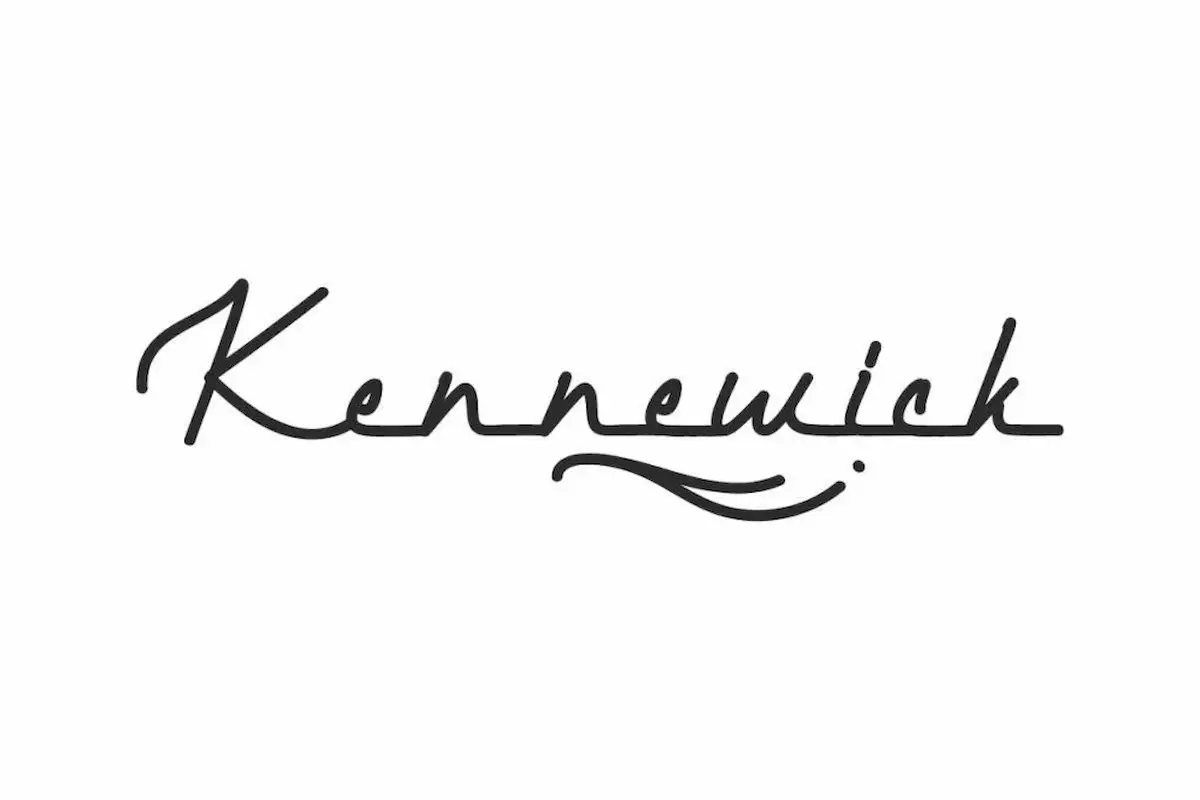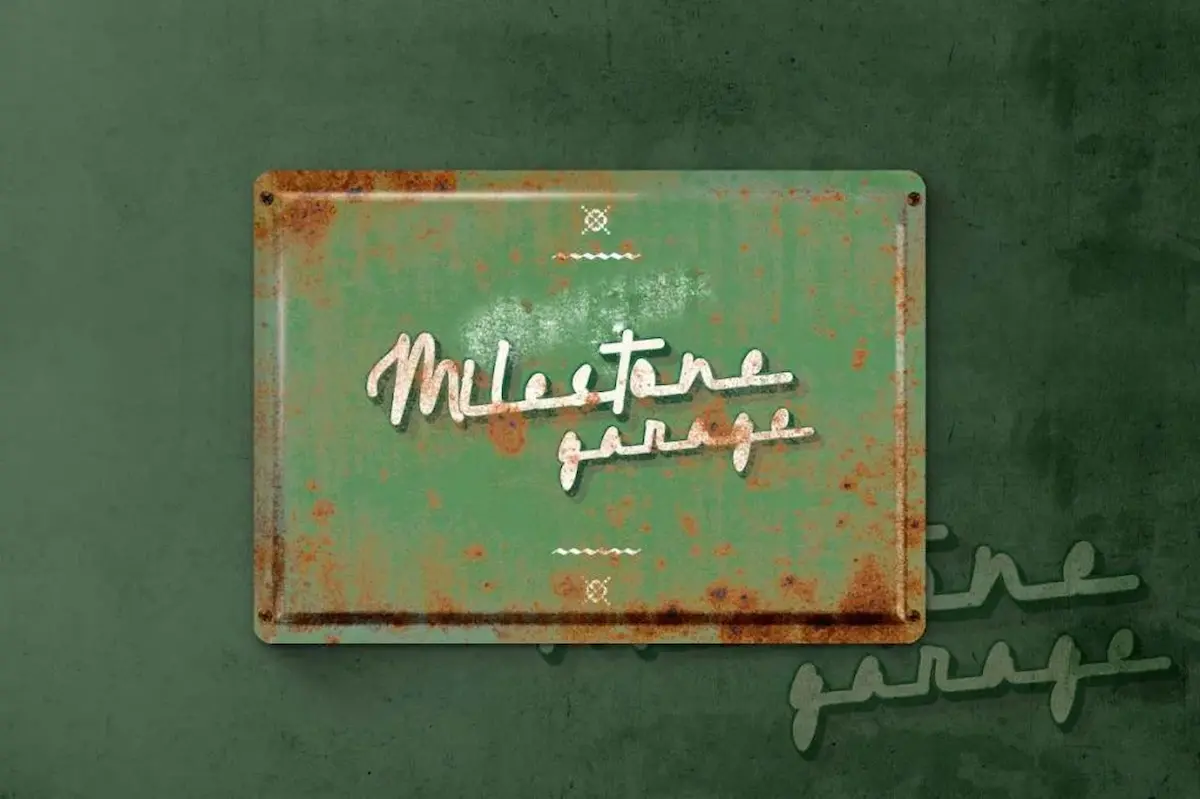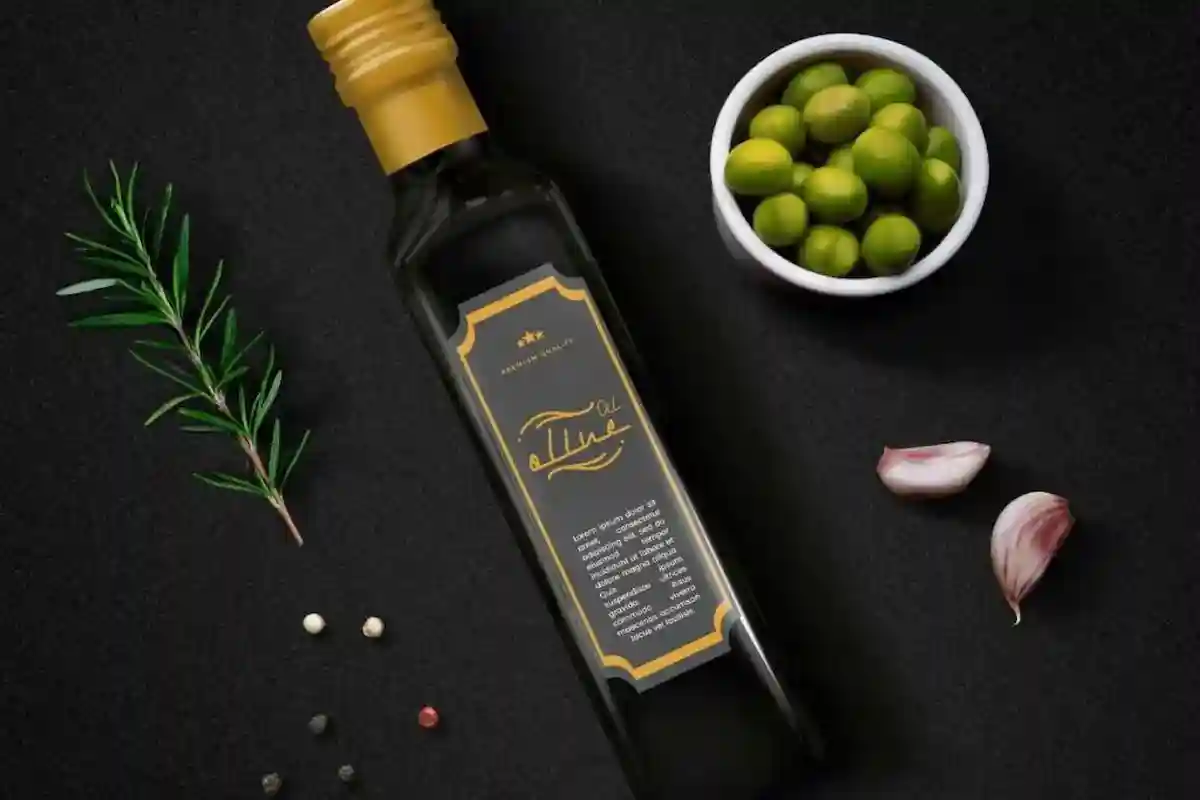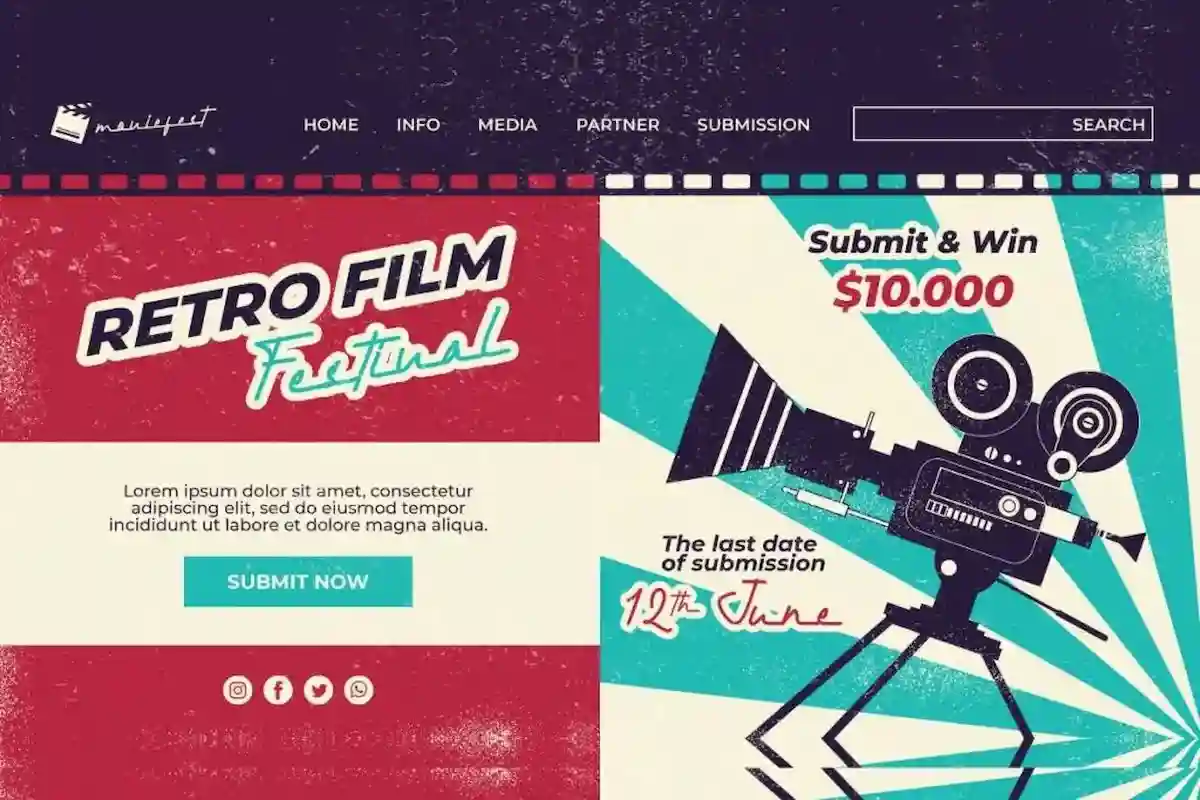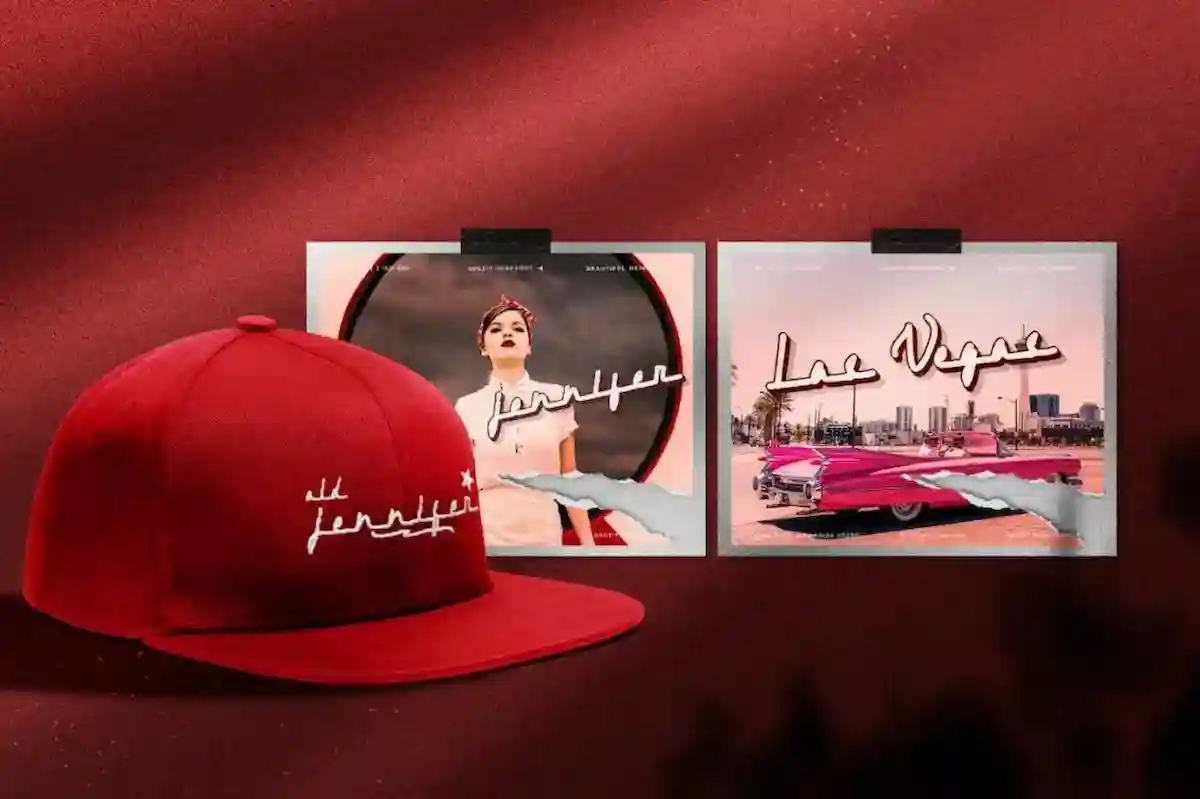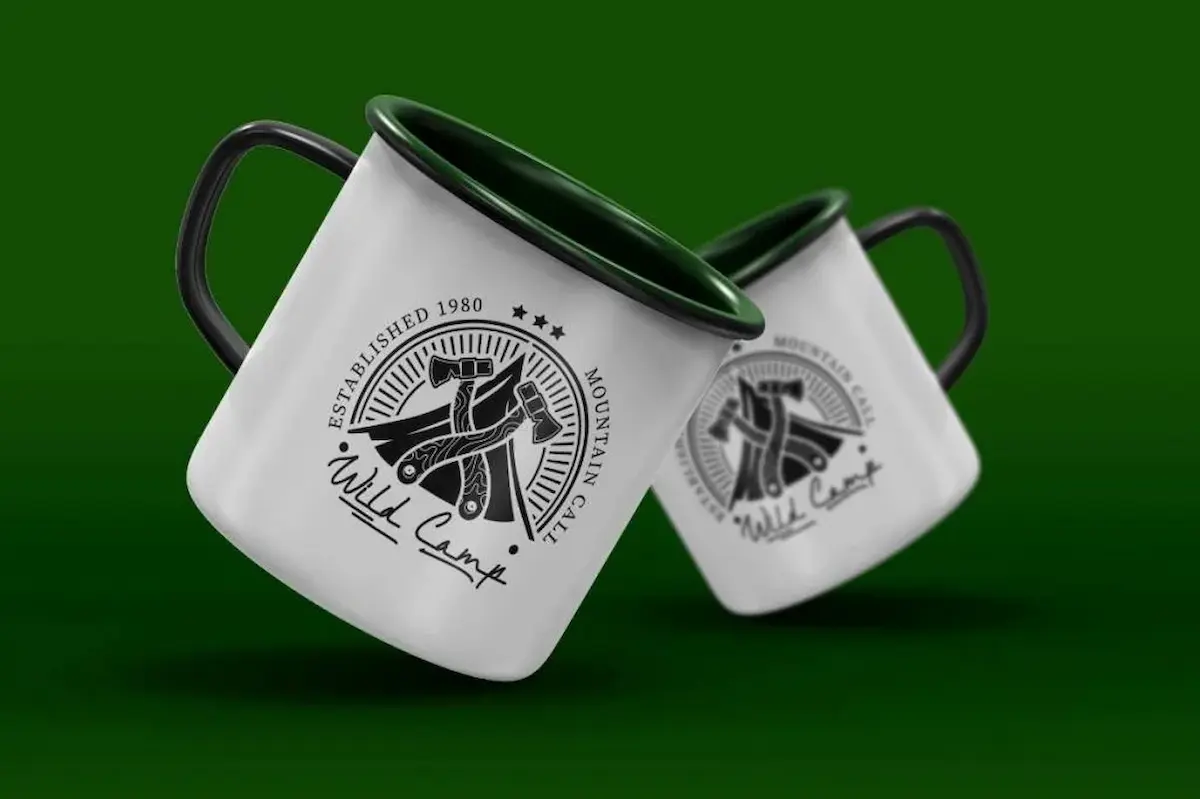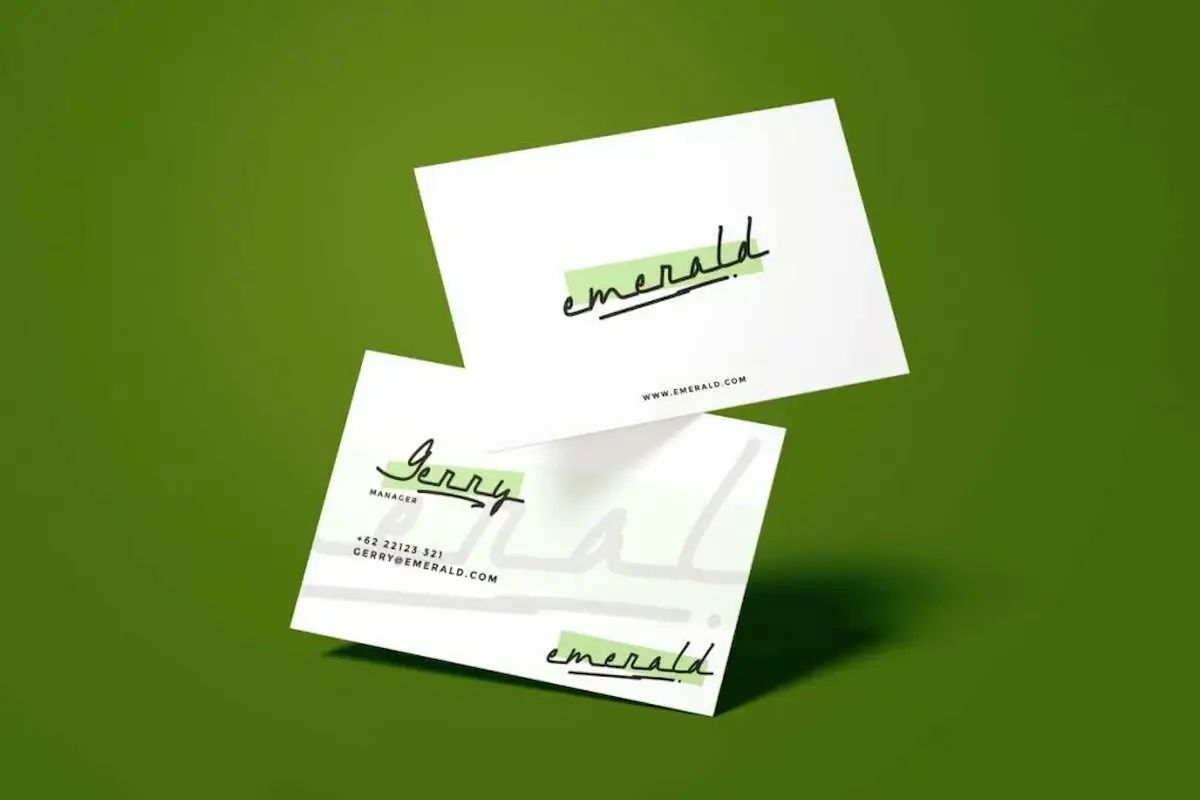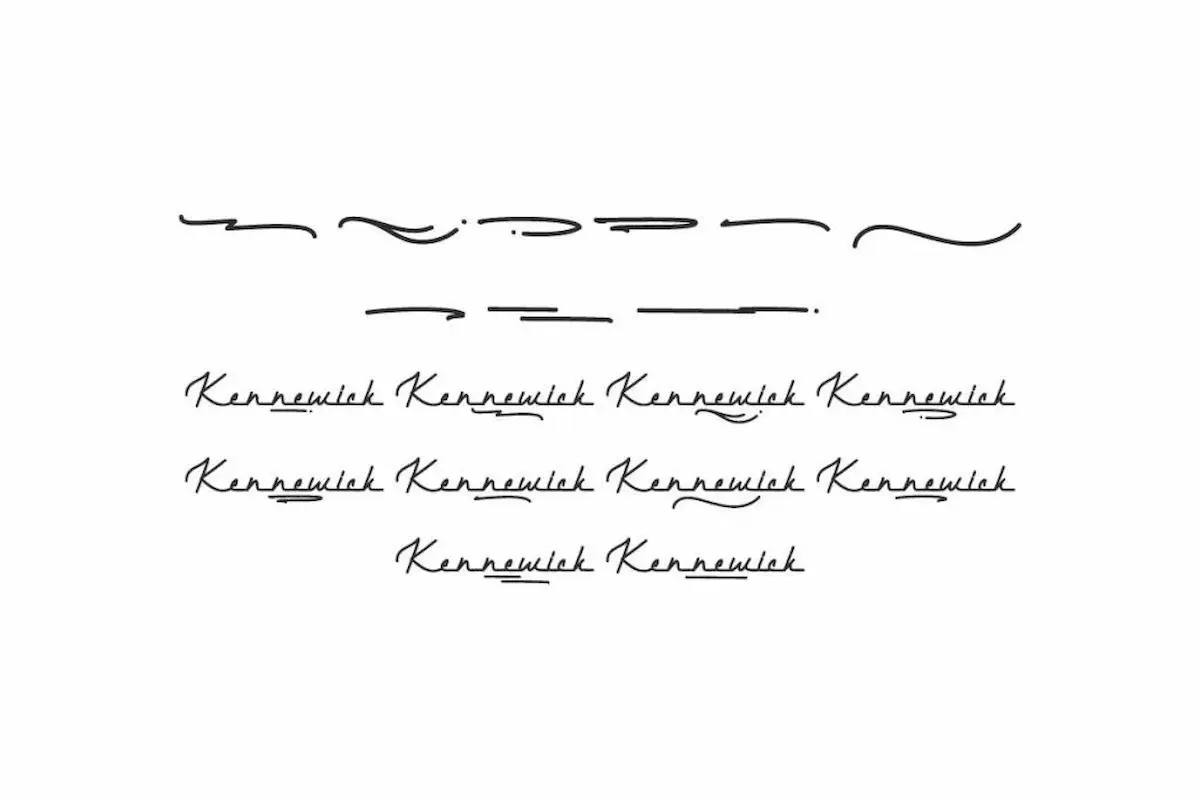
Kennewick Retro Font
Kennewick Font is a retro classic display font by NihStudio, made in 2021. Kennewick Font will great for café, restaurant, music, events, automotive etc.
Kennewick Classic Font is handcrafted in our studio in Indonesia, ensuring every curve and detail is thoughtfully made. It’s perfect for a wide range of design projects (extended license required), such as branding, logos, business cards, signage, flyers, brochures, and packaging.
This font works beautifully across many industries, including restaurants, cafés, music, weddings, automotive, property, and more.